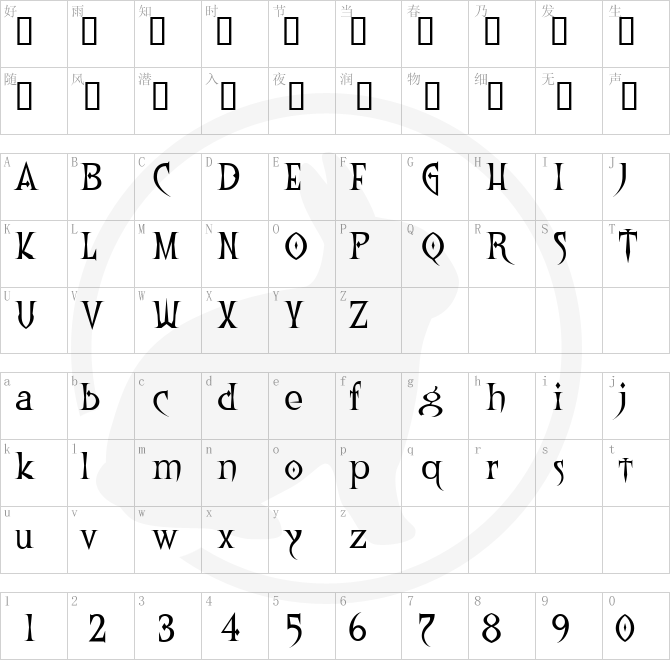
- Font Name:Sabien
Sabien.ttf is a very beautiful artistic font, Sabien.ttf is widely used in the design and printing of various books and pictures,Sabien.ttf has a strong visual impact,Sabien.ttf is a commonly used font in newspapers, magazines and books, and is used in posters, e-commerce Poster design, store design, logo design, font design and other fields.Sabien.